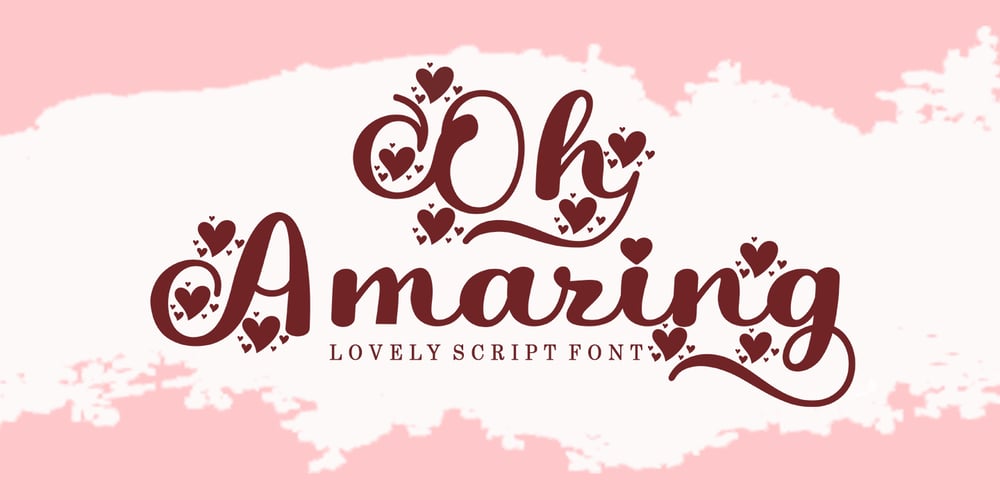
Oh Amazing Script
Oh Amazing Script font
Oh Amazing Script Font Family was designed by Mu Fazzal and published by Bosstypestudio. Oh Amazing Script contains 1 styles and family package options. Oh Amazing Script is a new calligraphy font which is fresh, funny, interesting and with a cute heart that can be connected. It is suitable for greeting cards, branding materials, business cards, quotes, posters, and more!Thank You!